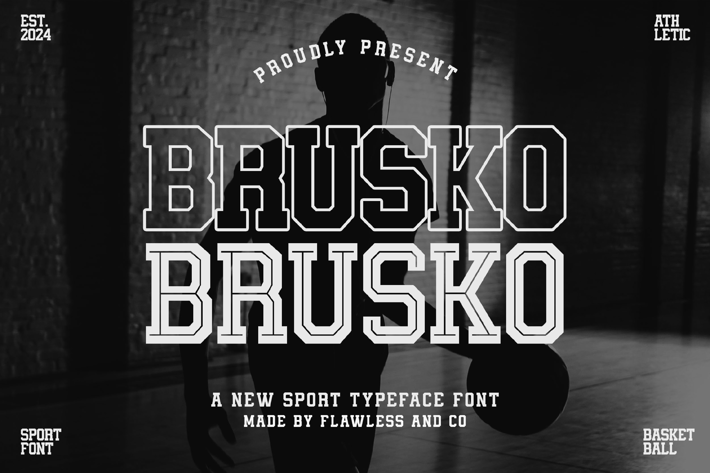
Brusko Basketball Font
Introducing "Brusko," a sports basketball font designed to capture the dynamic energy and excitement of the game. With its bold and athletic letterforms, Brusko is perfect for sports branding, sport events, posters, basketball events, and more, ensuring your designs stand out with a powerful and energetic presence.